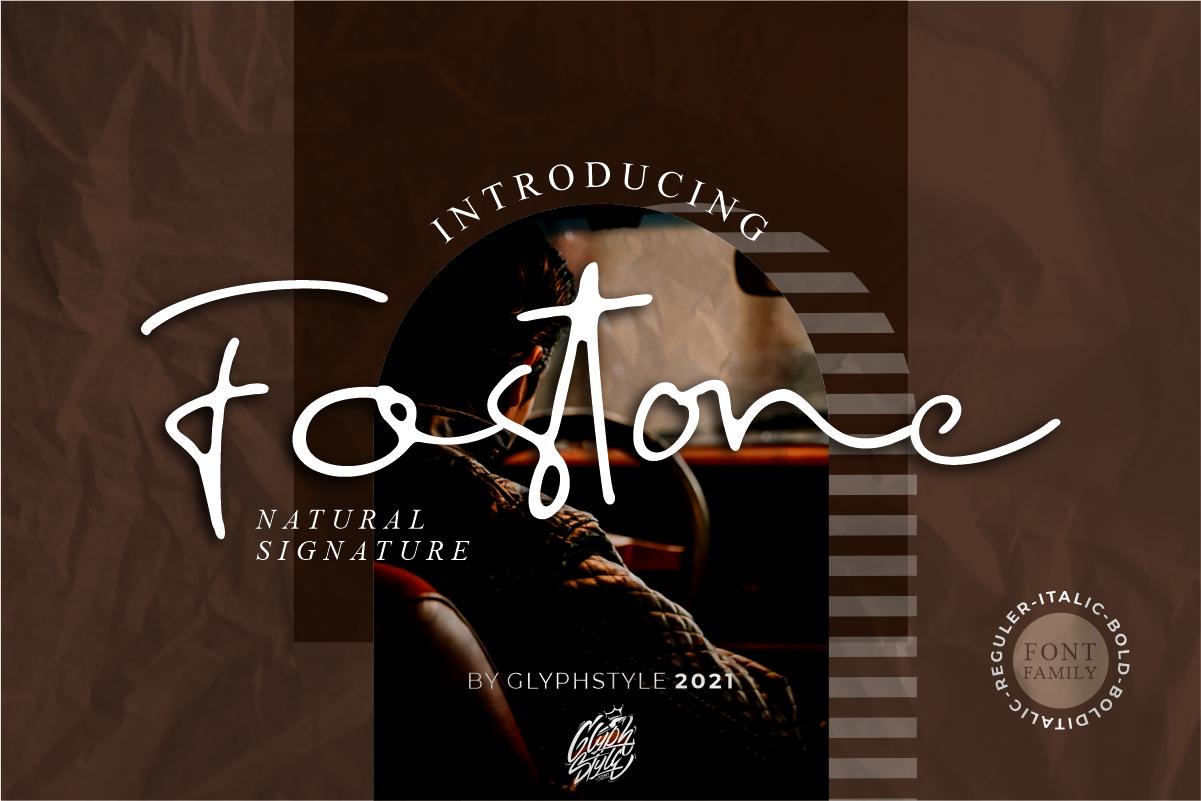
Fostone Natural Signature Font Description
Fostone Natural Signature is a cute and dainty handwritten font. Its sweet and full of life style makes this font a wonderful choice for brightening up your designs. This font is PUA encoded which means you can access all of the glyphs and swashes with ease!